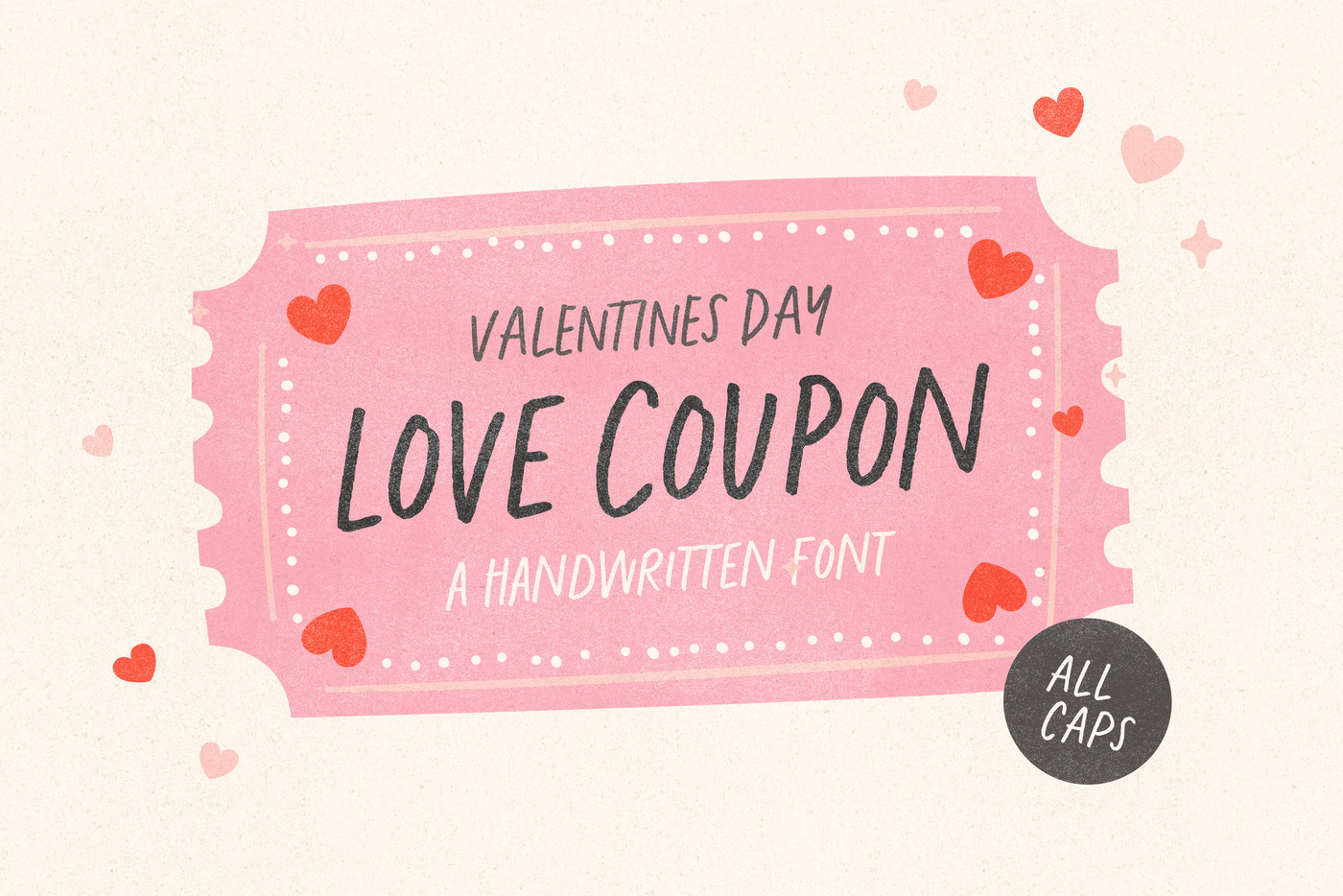
Love Coupon Typeface
You receive two fonts in this pack - one is the handwritten letters font and the other is the extra catchwords and doodle dings font :)